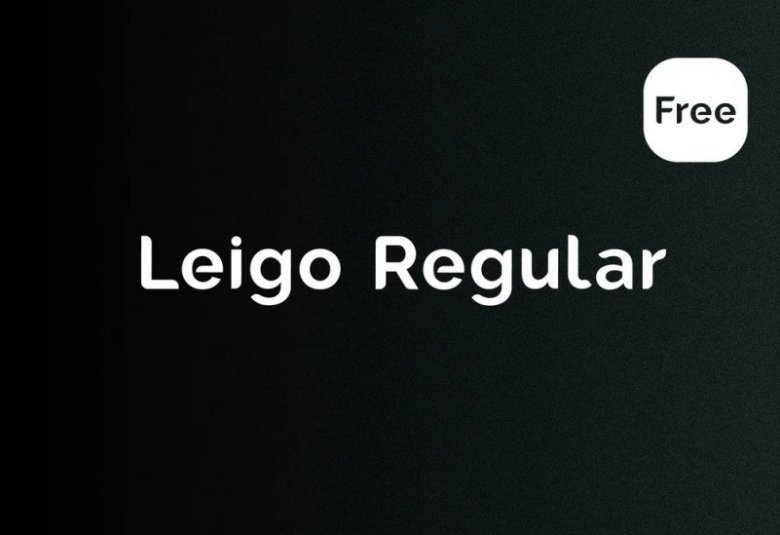
Leigo Regular Free Font
Leigo Regular Free Font – is a modern & classic font, perfect for your up coming projects. It’s a brand new small serif, playful typeface. This font was designed to be decorative, natural and versatile with a jolly touch, that`s why its characters have rounded corners and a small decorative serif simulating pen strokes. Suitable for use on the project such as branding, packaging, poster, headline, brochure, t-shirt, title, logotype, advertising, tag labels, product mock-up, etc.